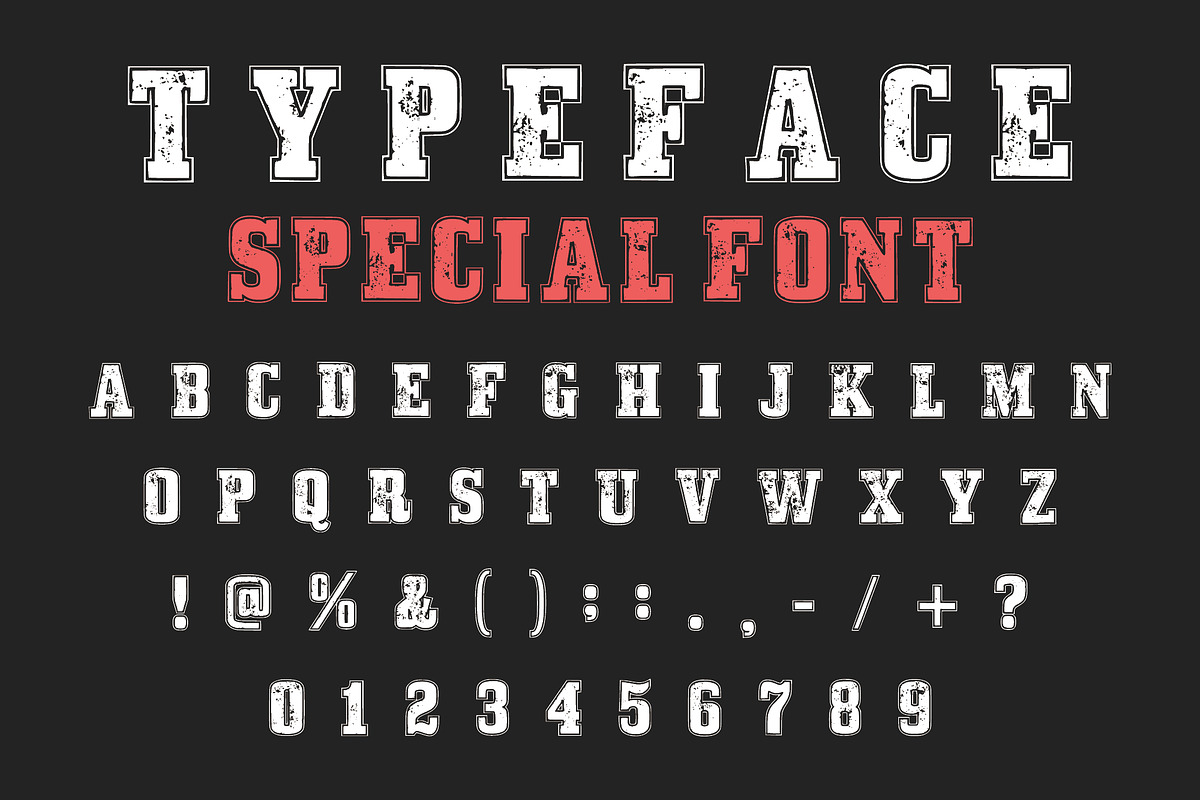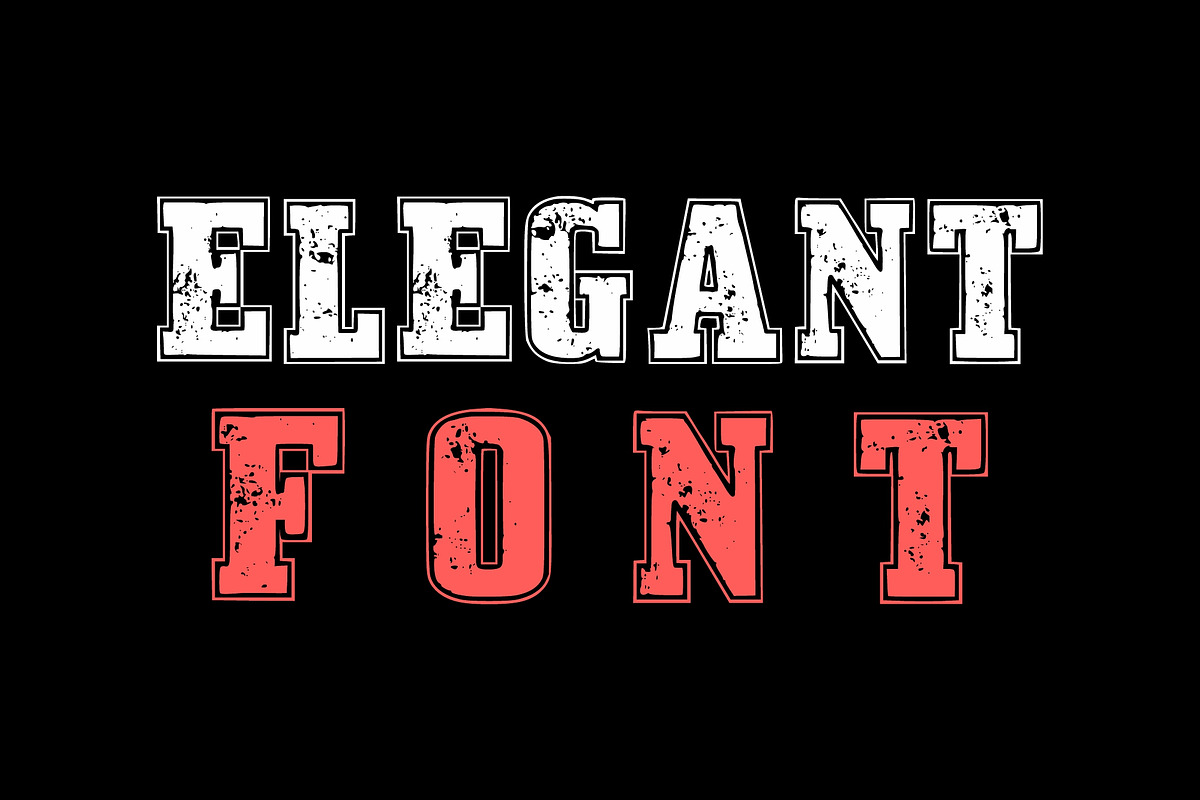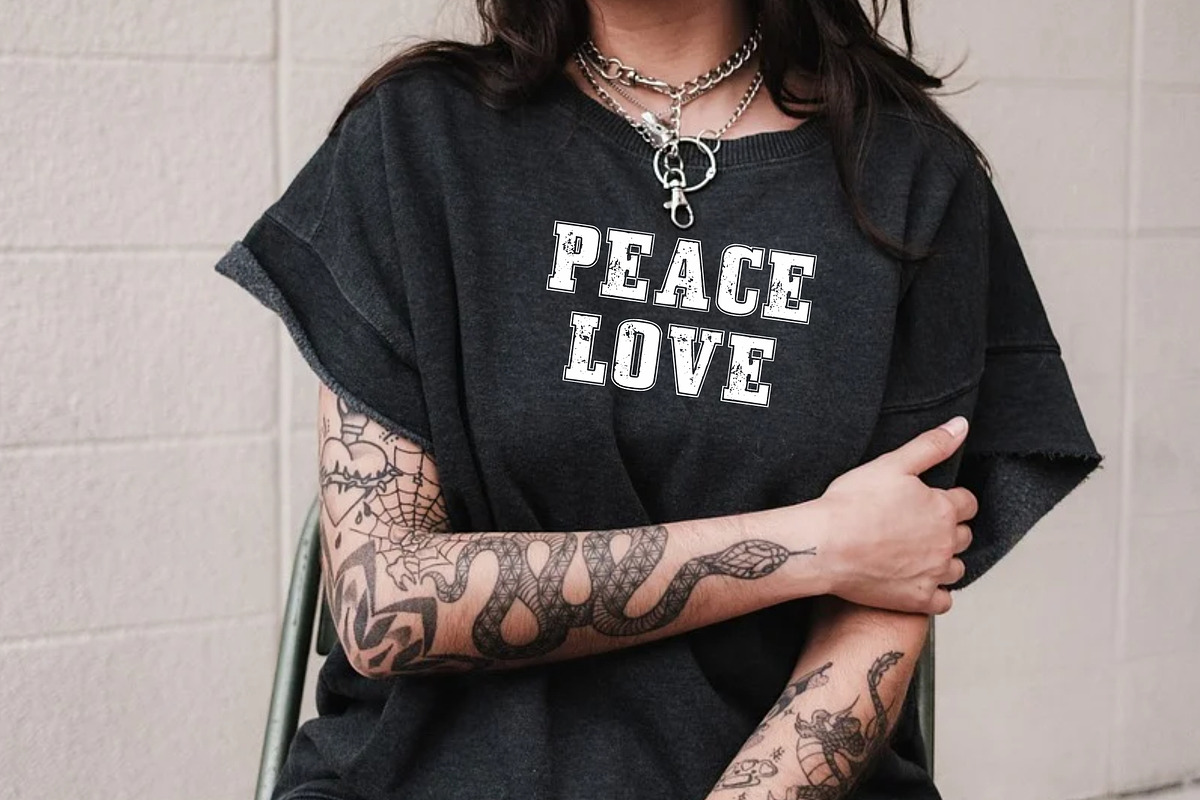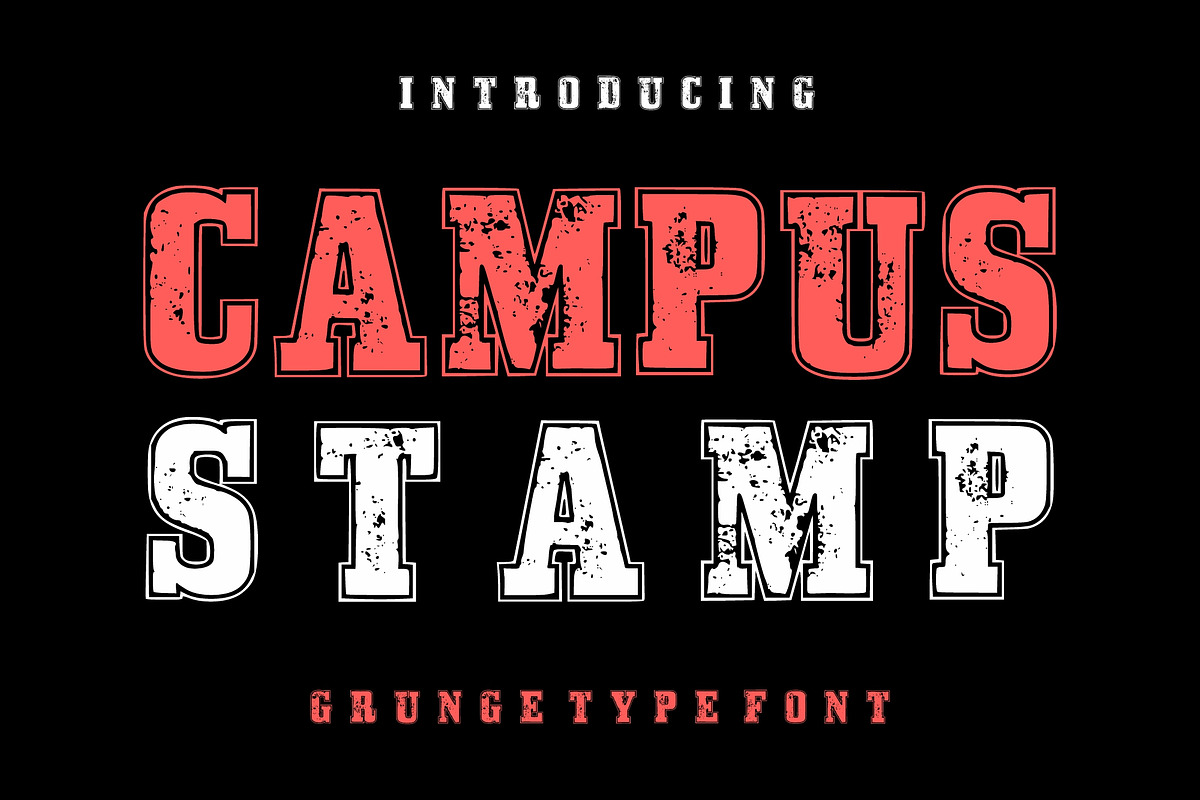
Campus Stamp
Bring an authentic, tactile feel to your projects with the Campus Stamp font, a rugged grunge typeface that captures the raw texture of a physical ink stamp.
This Campus Stamp typeface is perfect for creating “distressed” academic looks, vintage sports apparel, and artisanal branding that values a handmade aesthetic. The weathered edges and internal “ink” imperfections of the Campus Stamp font add immediate depth and character to headlines and merchandise.
Pair it with clean, modern backgrounds to let its gritty personality pop, or lean into the retro school-spirit vibe by combining it with collegiate colors and varsity-style graphics.